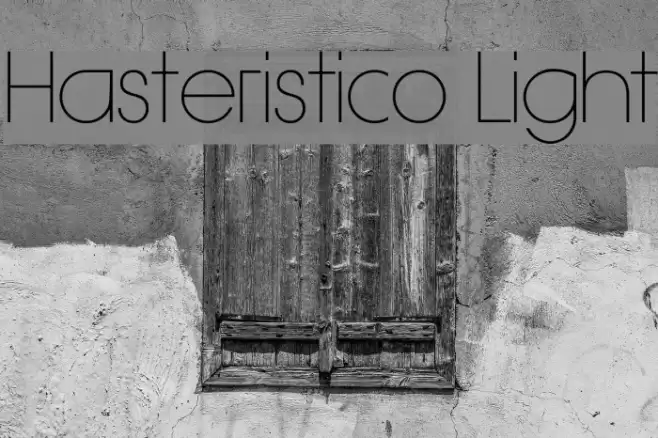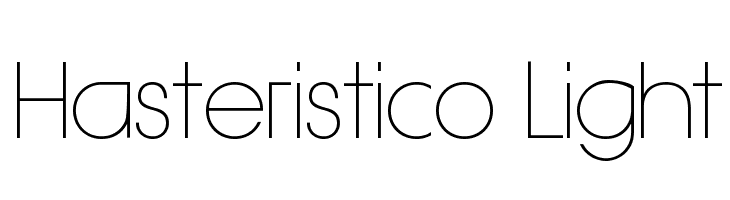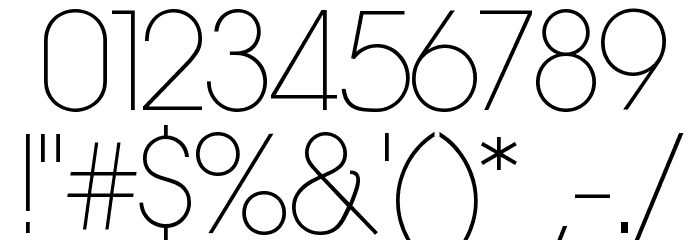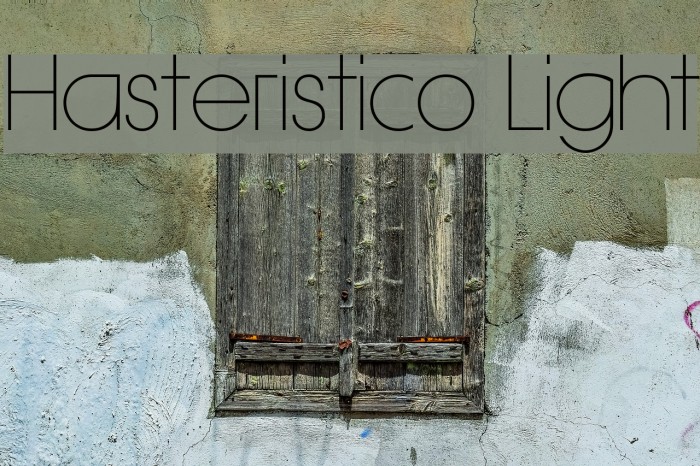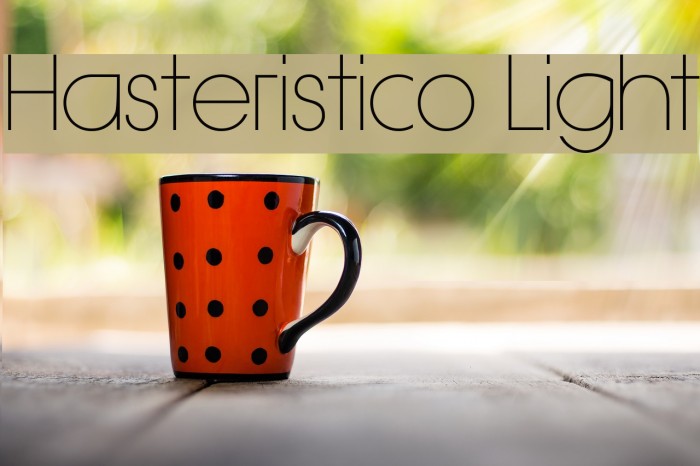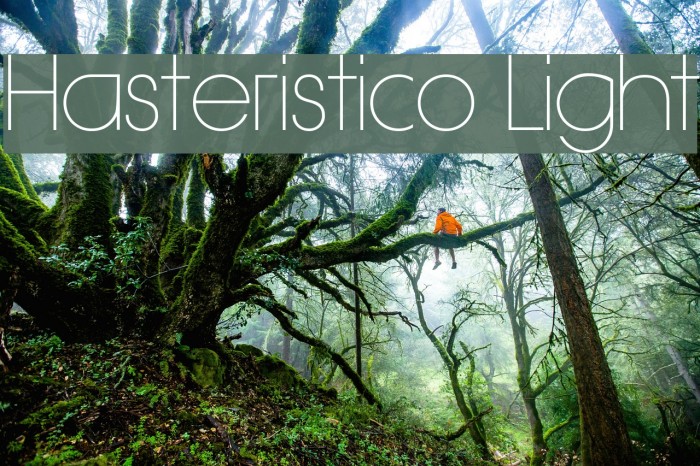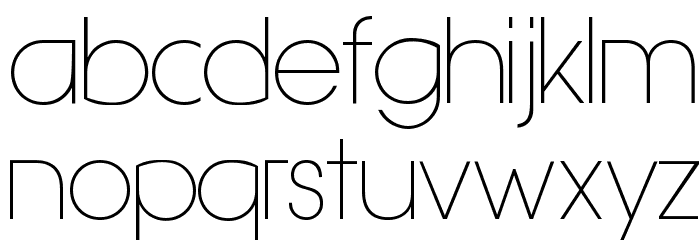
Hasteristico Light Font
Hasteristico Light Description
This font features a sleek and modern design with clean lines and a minimalist aesthetic. The characters are evenly spaced, providing a balanced and harmonious appearance. The uppercase letters are tall and elegant, while the lowercase letters maintain a consistent style that complements the overall look. The numerals are clear and easy to read, making them suitable for various applications. Special characters are designed with the same attention to detail, ensuring they blend seamlessly with the rest of the font. This font's light weight and refined structure make it ideal for projects that require a sophisticated and contemporary touch.
A sleek, modern font with clean lines and a minimalist aesthetic from Uncategorized fonts.
- Proposed Projects: Ideal for branding, editorial design, websites, and modern advertising.